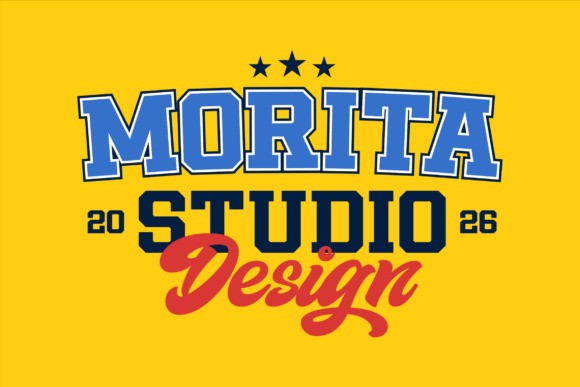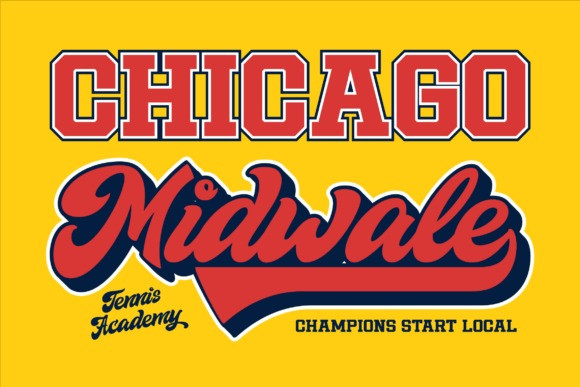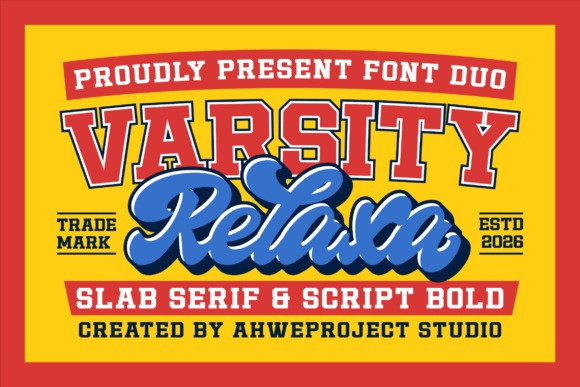
Varsity Relaxa Font Duo a powerful combination of bold slab serif and smooth script lettering designed to make your projects stand out. Inspired by classic varsity, sports, college, and retro aesthetics, this font duo delivers the perfect balance between strong athletic vibes and stylish handwritten energy. Perfect for sports branding, logos, apparel, merchandise, posters, packaging, social media, and more. Create eye-catching designs with a font duo built to grab attention instantly.